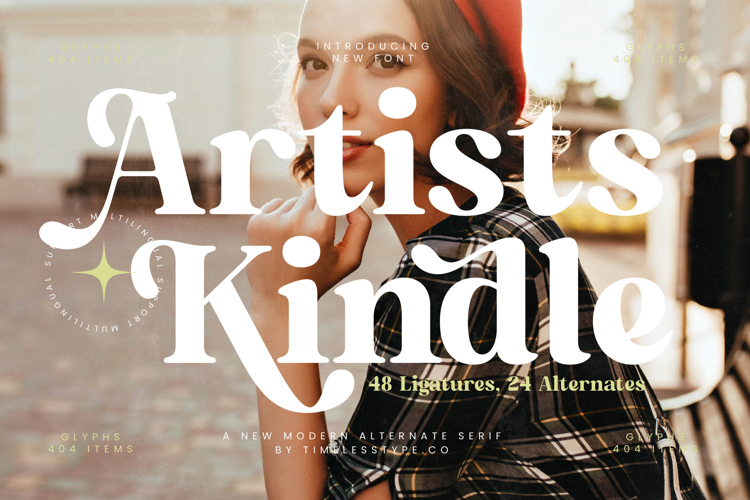
Artists Kindle - New Modern Alternate Serif
Artists Kindle is a modern alternate serif font that merges bold elegance with playful decorative energy, perfect for contemporary projects that need sophistication with personality. Its strong letterforms, refined curves, and unique alternates give it a dynamic character that feels both timeless and fresh. Designed with 48 ligatures and 24 alternates, Artists Kindle provides endless flexibility, allowing designers to create expressive, distinctive typography that elevates every composition.
This font is especially impactful in headline typography, where its bold weight and stylish alternates capture attention across posters, banners, and editorial layouts. In branding and logo design, Artists Kindle communicates confidence and refinement, making it an ideal choice for fashion labels, boutique products, lifestyle brands, and creative studios seeking a premium yet approachable identity. Its decorative qualities also shine in packaging design, particularly for cosmetics, beverages, and artisanal goods where typography enhances desirability and brand recognition.